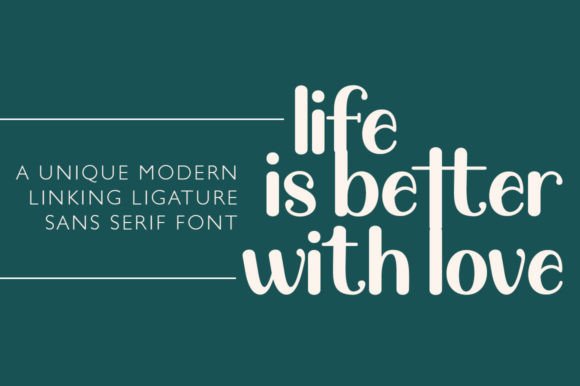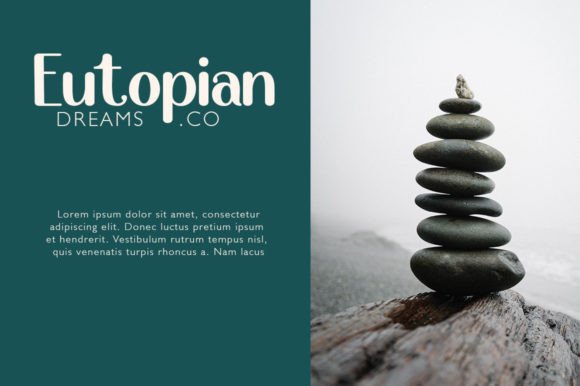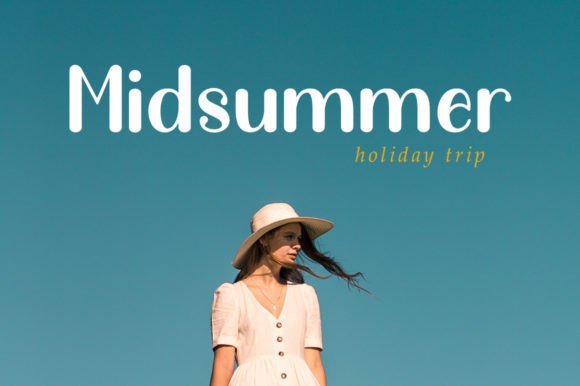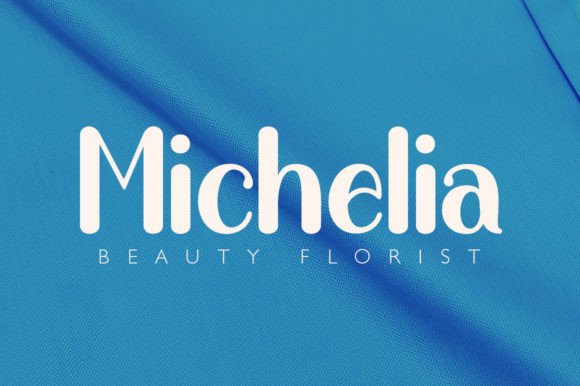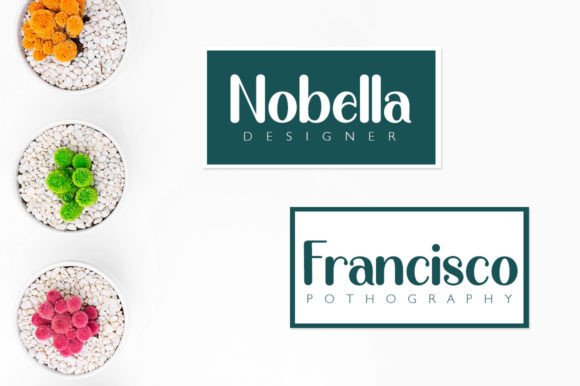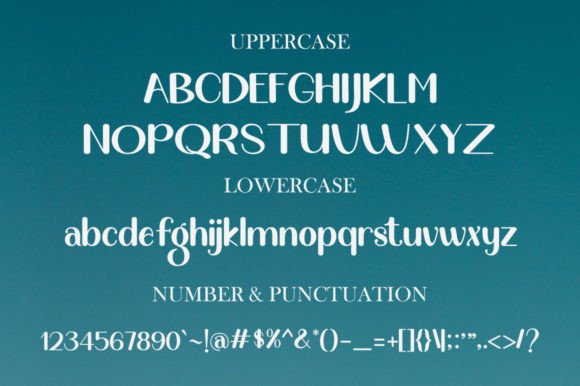
Epidemic Font: The Ultimate Bold Display Font for Your Design Projects
Are you tired of using the same old fonts for your design projects? Look no further! Epidemic Font is a bold display font that is simple, unique, and customizable, making it perfect for a wide range of design ideas. In this article, we’ll explore the features and benefits of Epidemic Font and how it can add a fun and friendly touch to your projects.
What is Epidemic Font?
Epidemic Font is a bold display font that is designed to make a statement. Its simple and unique design makes it stand out from other fonts, and its customizability allows you to tailor it to your specific needs. Whether you’re working on a Christmas theme, Valentine’s Day project, poster, invitation, wedding design, branding project, social media post, magazine, book cover, or any other design idea, Epidemic Font is the perfect choice.
Key Features of Epidemic Font
• Bold and eye-catching: Epidemic Font is a bold display font that grabs attention and makes a statement.
• Simple and unique: Its simple design makes it easy to read, while its unique style sets it apart from other fonts.
• Customizable: Epidemic Font can be customized to fit your specific needs, making it perfect for a wide range of design projects.
• Versatile: This font can be used for a variety of design ideas, including Christmas themes, Valentine’s Day projects, posters, invitations, weddings, branding projects, social media posts, magazines, book covers, and more.
Benefits of Using Epidemic Font
So, why choose Epidemic Font for your design projects? Here are just a few benefits:
• Adds a fun and friendly touch: Epidemic Font adds a playful and approachable touch to any design project, making it perfect for brands and designers who want to connect with their audience.
• Stand out from the crowd: With its unique design, Epidemic Font helps your design project stand out from the crowd and grab attention.
• Easy to read: Despite its bold design, Epidemic Font is easy to read, making it perfect for designs that require a clear and concise message.
• Customizable: Epidemic Font can be customized to fit your specific needs, making it perfect for designers who want to tailor their font to their brand or project.
Design Ideas Using Epidemic Font
Epidemic Font is a versatile font that can be used for a wide range of design ideas. Here are a few examples:
• Christmas themes: Use Epidemic Font to create festive and fun Christmas designs, such as holiday cards, posters, and social media posts.
• Valentine’s Day projects: Add a romantic and playful touch to your Valentine’s Day designs with Epidemic Font.
• Posters and invitations: Epidemic Font is perfect for creating eye-catching posters and invitations for events, parties, and more.
• Weddings and branding projects: Use Epidemic Font to add a touch of elegance and sophistication to your wedding designs and branding projects.
• Social media posts: Epidemic Font is perfect for creating engaging and fun social media posts that grab attention.
Epidemic Font is a bold display font that is simple, unique, and customizable, making it perfect for a wide range of design projects. Its versatility, ease of use, and fun and friendly design make it a must-have for designers and crafters. Whether you’re working on a Christmas theme, Valentine’s Day project, poster, invitation, wedding design, branding project, social media post, magazine, book cover, or any other design idea, Epidemic Font is the perfect choice. So why wait? Download Epidemic Font today and add a fun and friendly touch to your design projects!